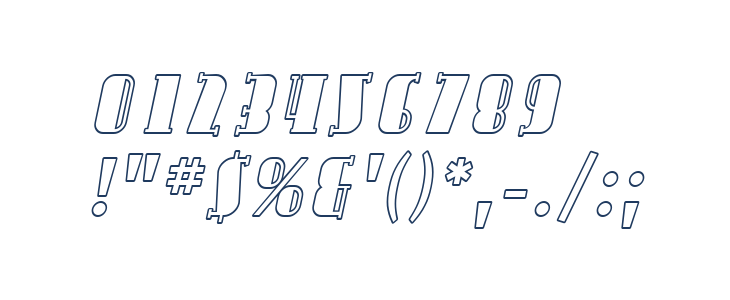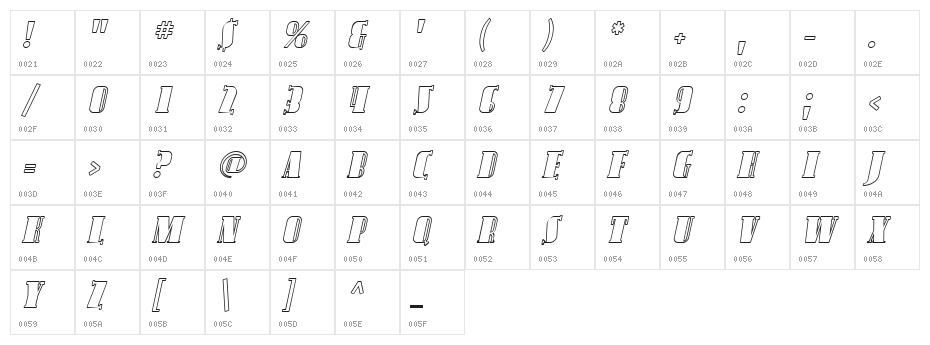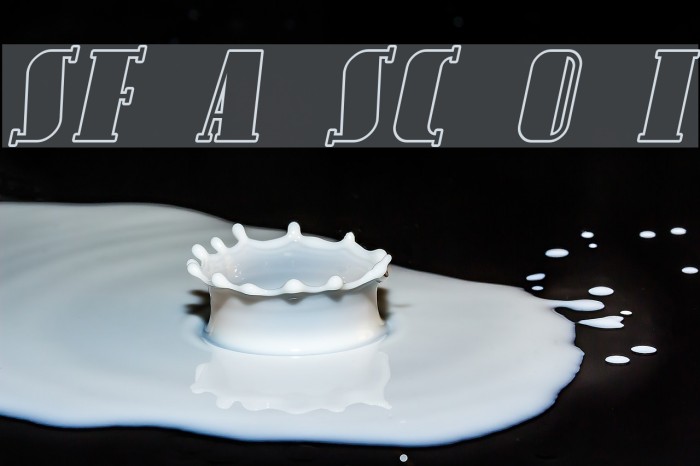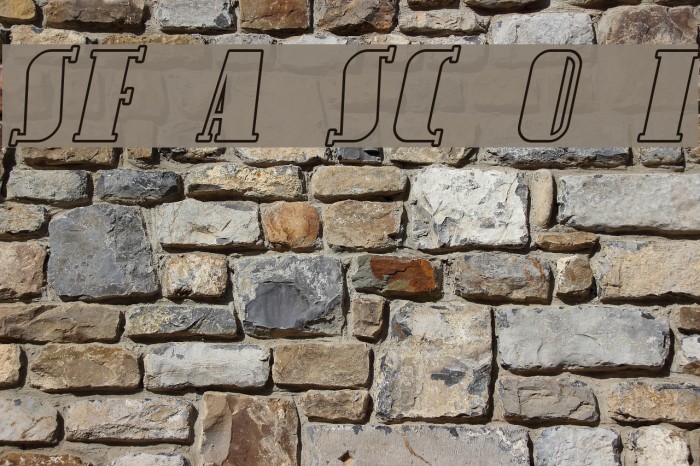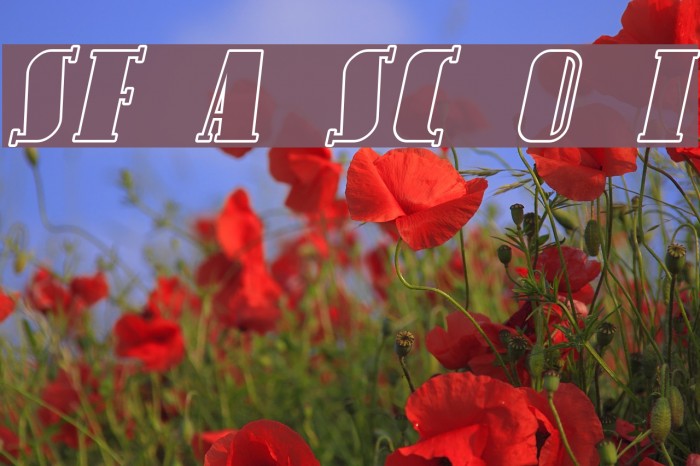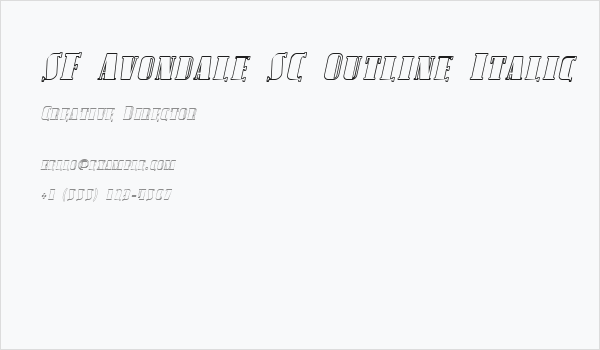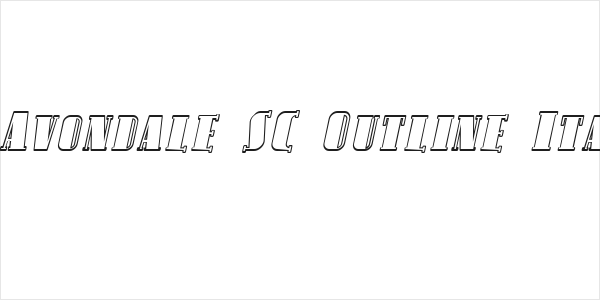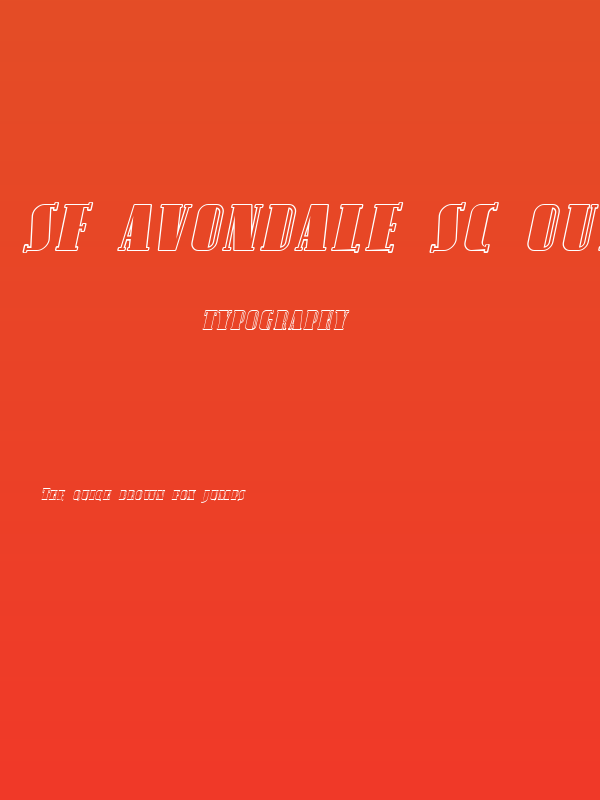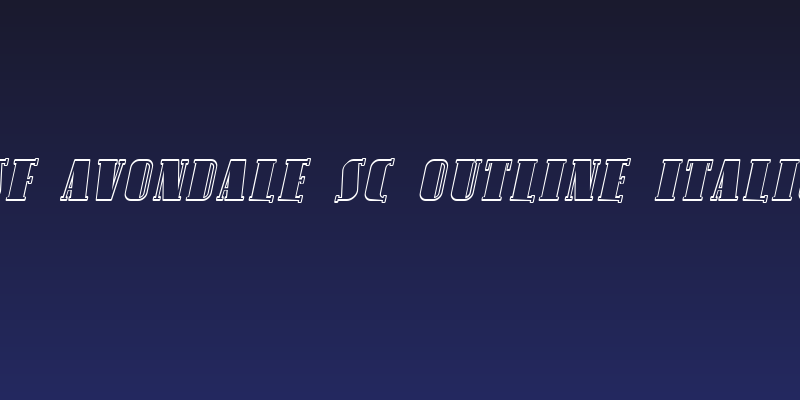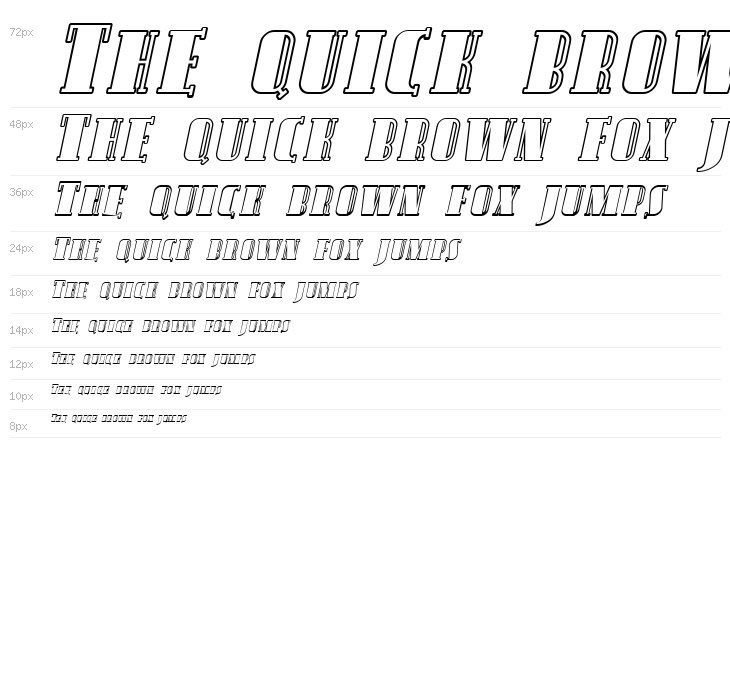
SF Avondale SC Outline Italic Font
SF Avondale SC Outline Italic Description
This font features a bold, italicized outline style that gives it a dynamic and modern appearance. The characters are sharply angled, with a distinct slant that adds a sense of motion and energy. The outline design provides a unique aesthetic, making it stand out in various design contexts. Each letter is crafted with precision, maintaining a consistent thickness throughout the strokes, which enhances readability despite the decorative nature. The font includes a full set of uppercase and lowercase letters, numbers, and a variety of special characters, making it versatile for different uses.